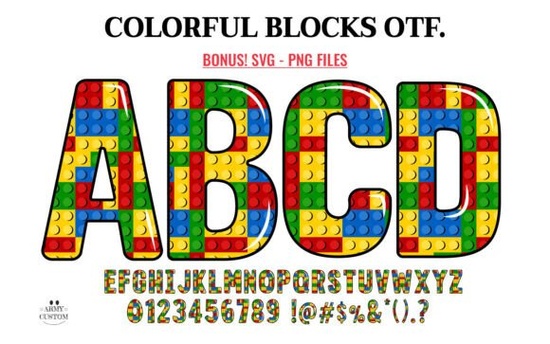
If you're creating cheerful, child-friendly designs think classroom posters, birthday party banners, or playful apparel the Colorful Blocks Font brings a joyful, tactile energy that’s hard to replicate. Inspired by classic building blocks, each letter feels like it’s been stacked with care, offering both whimsy and clarity. It’s especially useful for designers and small business owners who want to add instant warmth and approachability to their projects without overcomplicating the layout.
The Colorful Blocks Font shines in contexts where fun and readability go hand in hand:
Because the letters are bold and blocky, they hold up well even at smaller sizes great for busy layouts where legibility matters.
- For digital designs in Photoshop, Illustrator, etc.: Use the color version. It includes embedded colors and textures, so you don’t have to manually fill each letter.
Tips for getting the most out of this font
Even though it looks simple, thoughtful use of Colorful Blocks can elevate your project:
- Avoid overloading layouts. Because the letters are already eye-catching, pair them with minimal backgrounds or solid colors.
- Use uppercase for maximum impact. The design leans into capital letters, which mimic real alphabet blocks.
- Layer with clipart. Combine with toy-themed graphics like teddy bears, crayons, or ABC charts for cohesive themes.
Remember: this font isn’t just for kids’ rooms. Its friendly geometry works well in modern branding for cafes, toy stores, or even wellness brands aiming for a “gentle” aesthetic.
With the right setup, the Colorful Blocks Font becomes a reliable go-to for adding instant charm no extra effects needed.